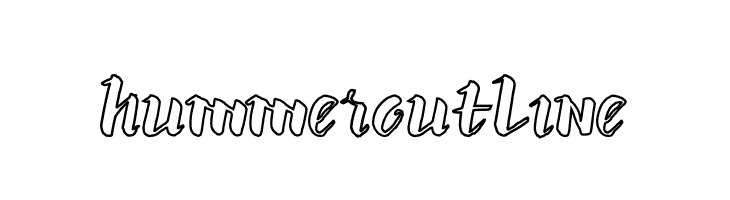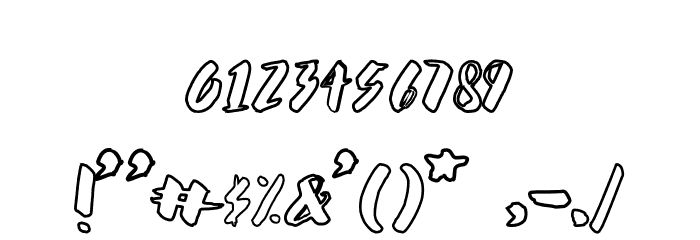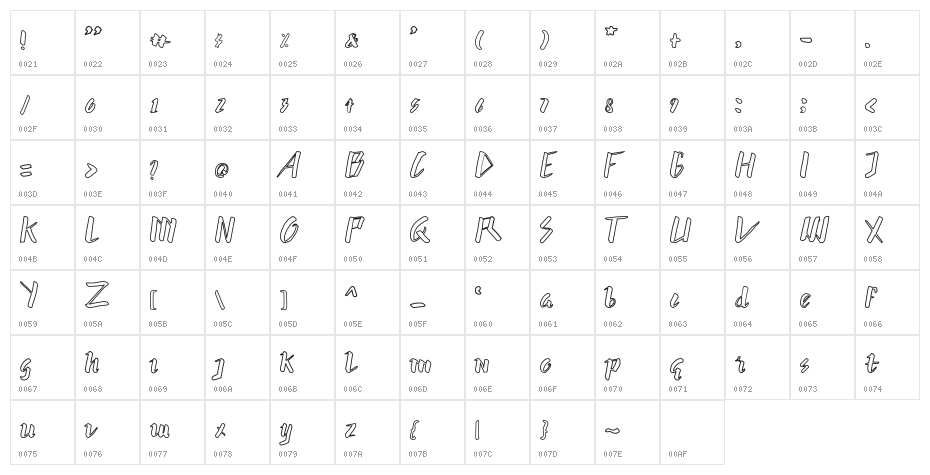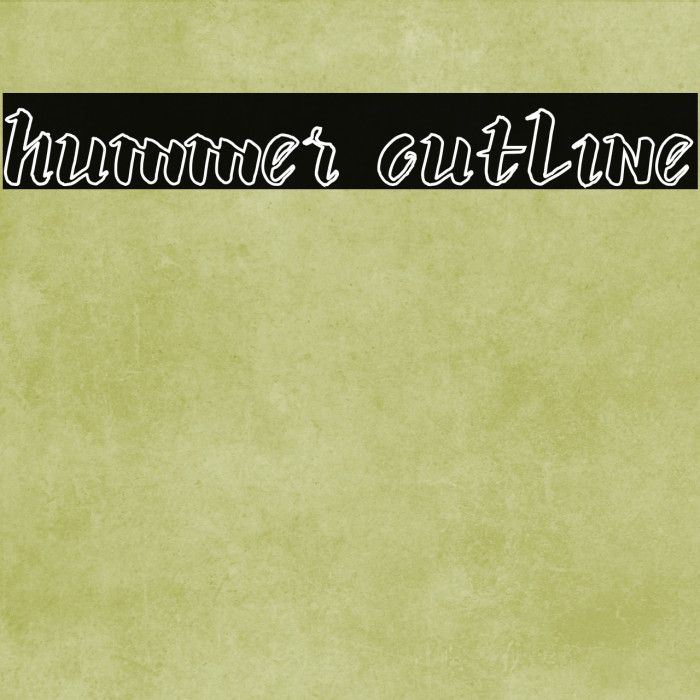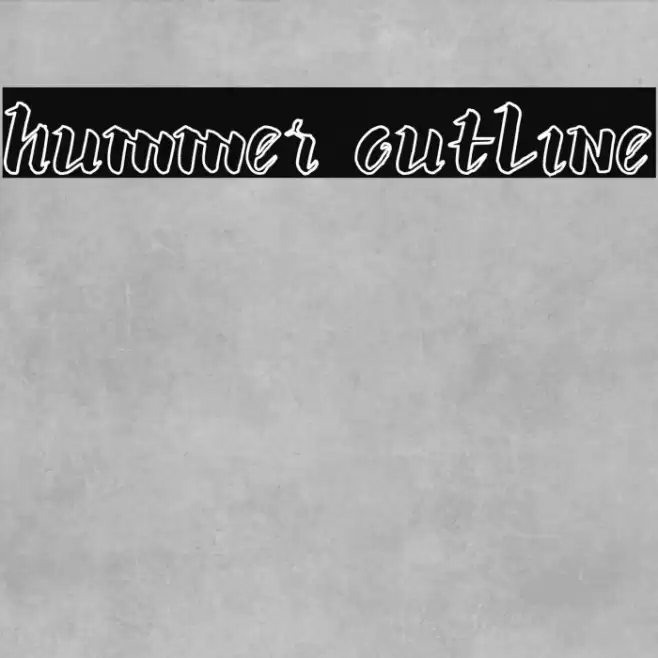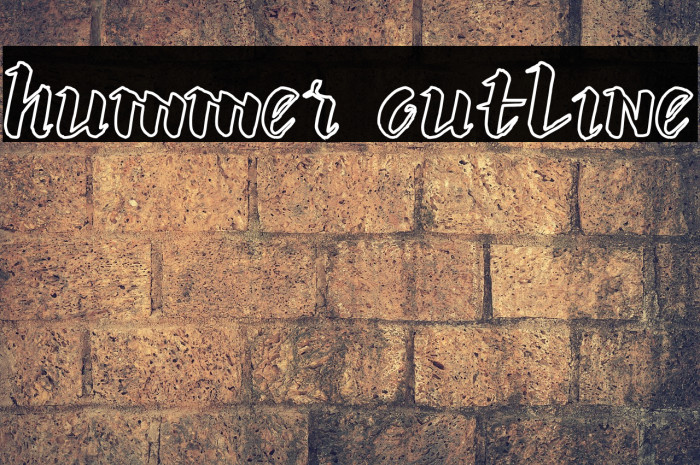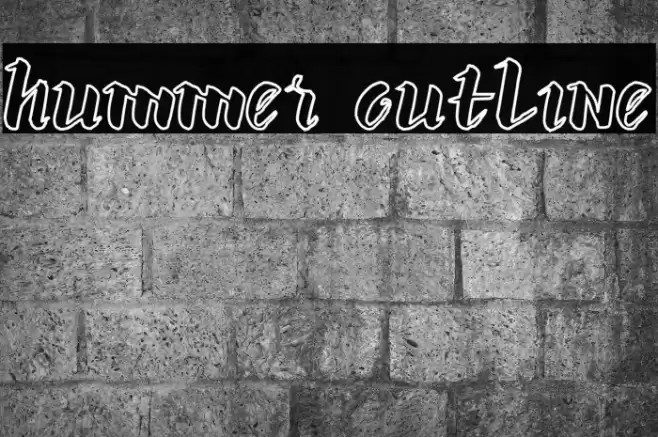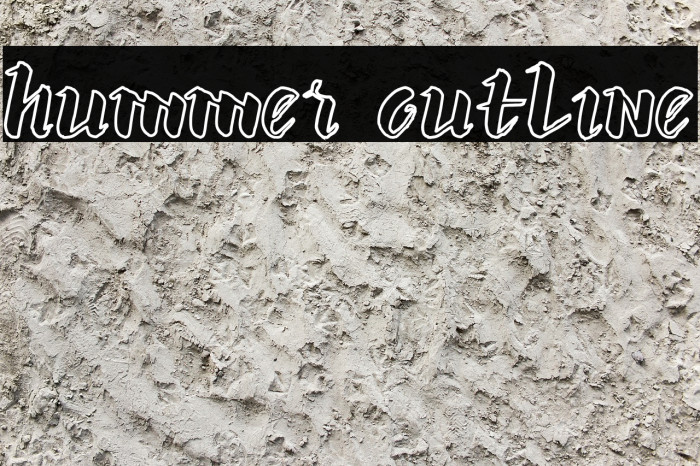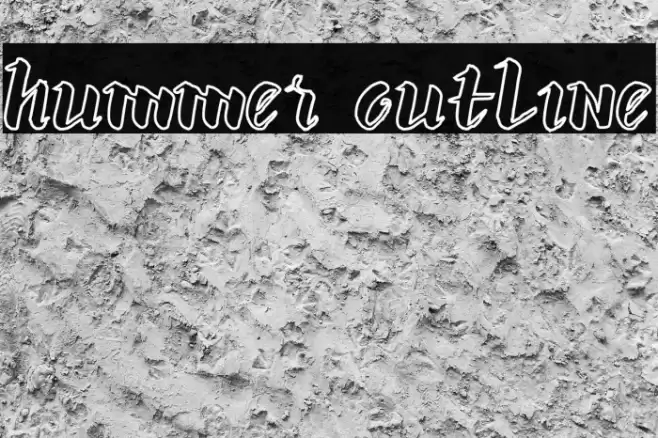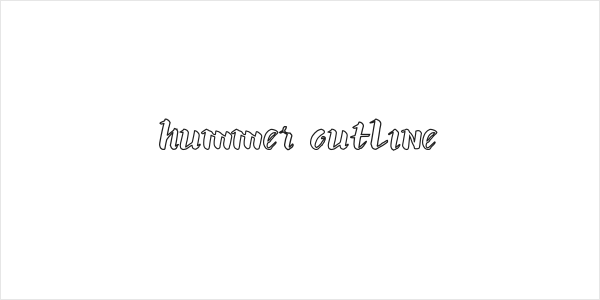
hummer outline Font
hummer outline Description
This font features a bold, dynamic outline style that gives each character a sense of movement and energy. The uppercase letters are angular and sharp, with a slightly irregular form that adds a playful, hand-drawn quality. The lowercase letters maintain this energetic style, with unique curves and angles that make them stand out. Numbers and special characters follow the same design principles, ensuring consistency across all elements. The overall appearance is modern and eye-catching, making it suitable for projects that require a bold statement.
| Proposed Projects | Ideal for posters, logos, and branding materials that need a bold and energetic look. |